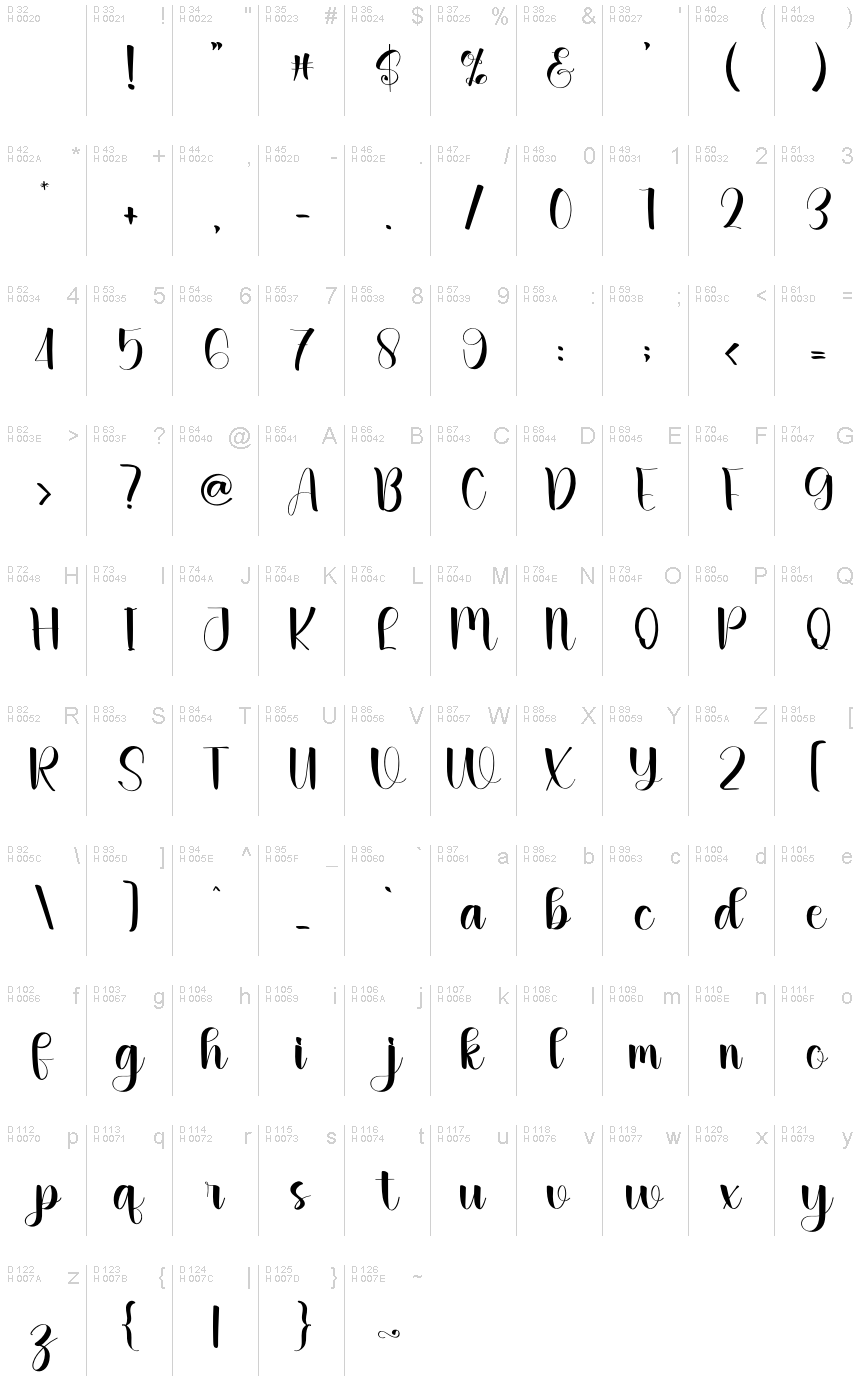
Rain Always
Rain Always, conceived by Inermedia Studio, brings the intimate touch of handwritten correspondence into the digital age. This font exudes a personal warmth with its fluid, organic strokes and elegantly crafted letters that seem to dance across the page. Its aesthetic appeal lies in the balance between casual charm and sophisticated flair—making it perfect for invitations, branding, or any project that requires a touch of humanity.
With its distinctive style, Rain Always stands out for its potential to inject personality into various creative endeavors. The graceful curvature and varying line weights suggest a bespoke experience; whether it's for editorial designs or personalized goods, this font adds an artisanal quality that resonates with audiences seeking authenticity. Rain Always is not just a font—it's a statement piece that can transform words into visually captivating messages.